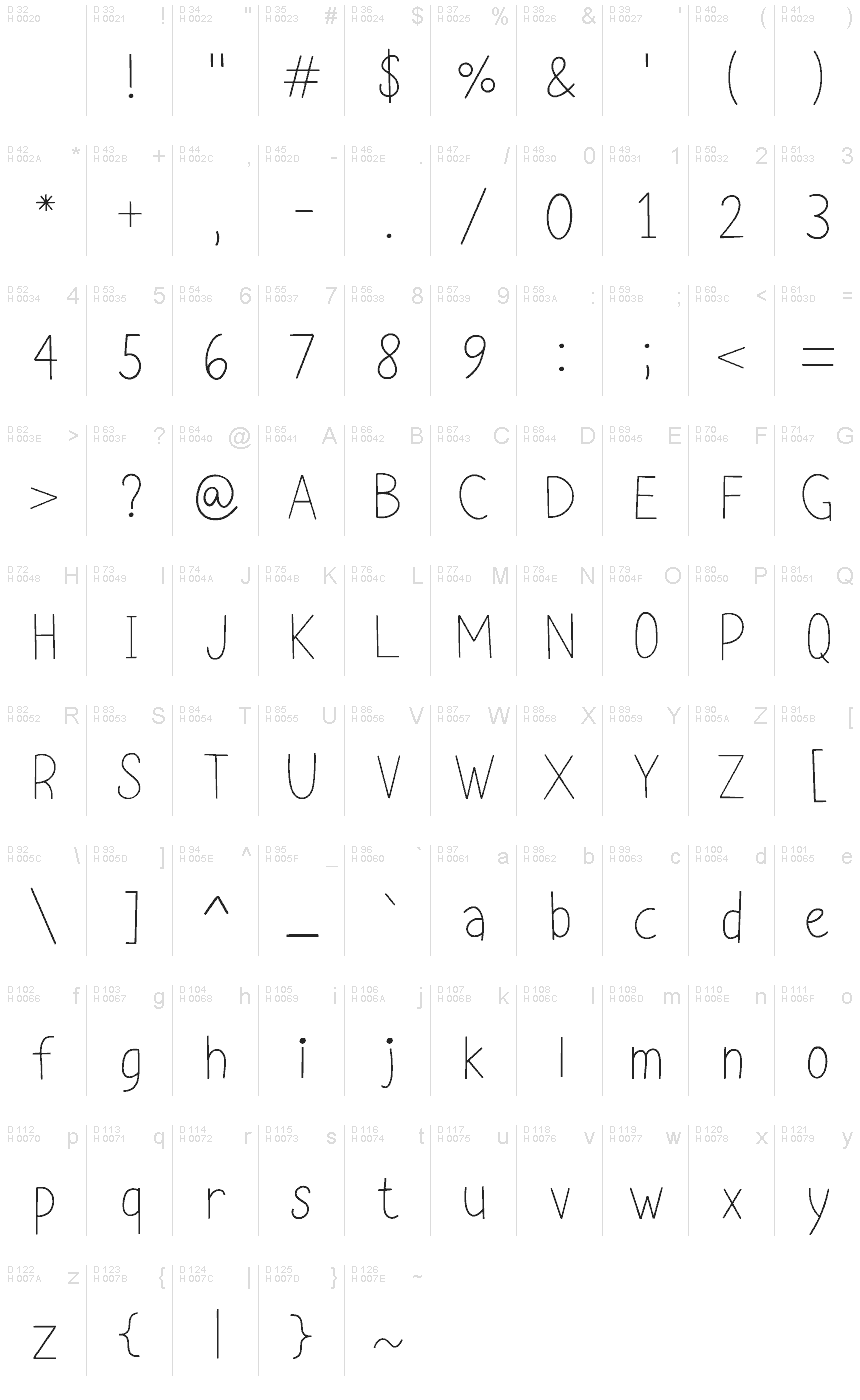
AlmostThin
Almost font by MAD is thin and light with a relaxed modern feel. The letters appear slowly inked and showcase natural jittering. Some letters are slightly tilted at different angles, giving each word a casual appearance. The font style is highly legible and thus can be used for both print and web purposes.
Use Almost typeface to personalize wedding invitations, stationery, stickers, and planner covers. Use it in inspirational quotes on social media or over typography T-shirts designs. It would be great for posters, greeting card cover titles, book titles, children’s projects branding et cetera!